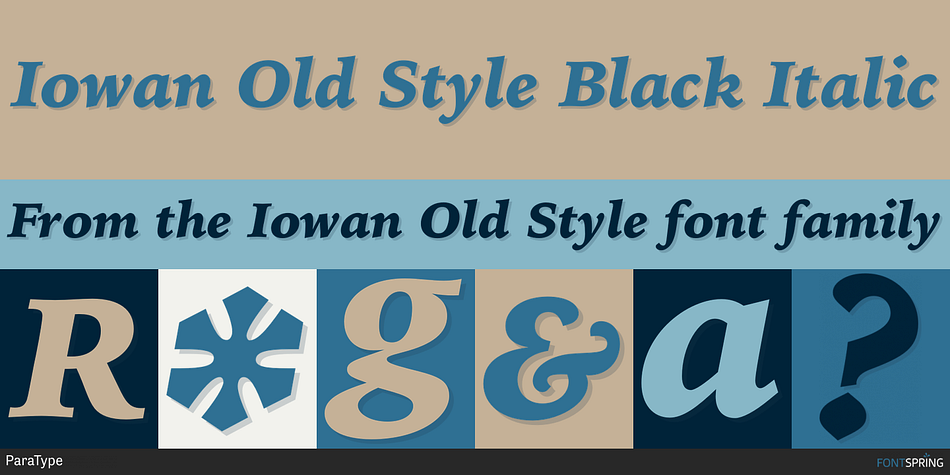
Iowan Old Style Black Italic
Designed by Natalia Vasilyeva, Iowan Old Style is a serif font family. This typeface has six styles and was published by ParaType.
Iowan Old Style was designed for Bitstream in 1990 by noted sign painter John Downer.
Iowan Old Style is a hardy contemporary text design modeled after earlier revivals of Jenson and Griffo typefaces but with a larger x-height, tighter letterfit, and reproportioned capitals.
Cyrillic letters were designed by Natalia Vasilyeva in 2016. Iowan Old Style Cyrillic was released by Paratype in 2017.